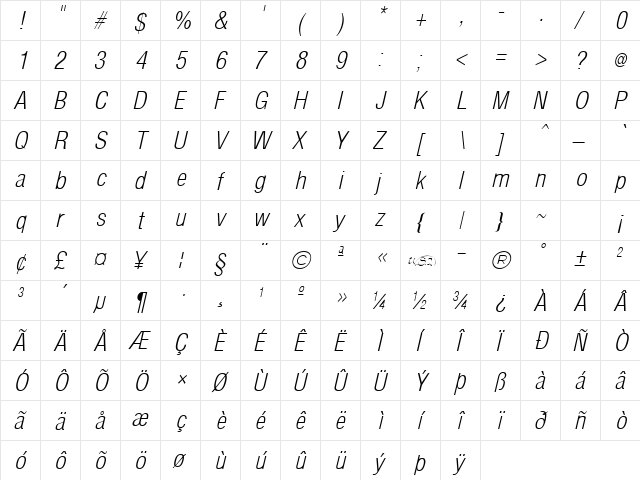
Arena Cond Light Italic Font Preview
Design Context for Arena Cond Light Typeface
Arena Cond Light takes a measured approach to typography — its balanced proportions and neutral character make it a reliable workhorse for both digital and print work. The dynamic lean of this cut emphasises speed and emphasis in any layout. Its slender proportions lend an understated elegance to any composition. Its narrow stance lets it pack a punch even in space-constrained designs.
Pro Tip: Use Arena Cond Light for emphasis, pull quotes, and subheadings where its slanted energy can add rhythm to the layout.